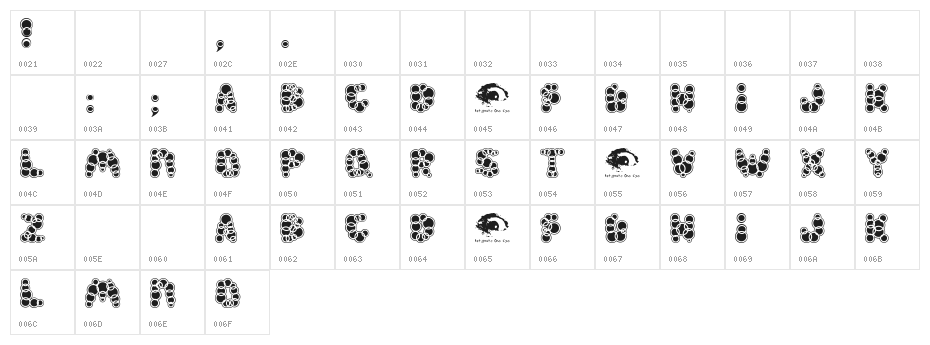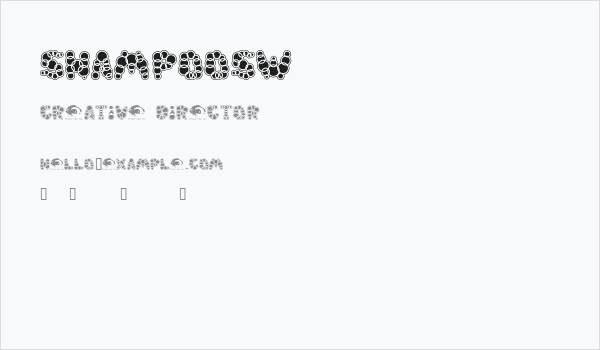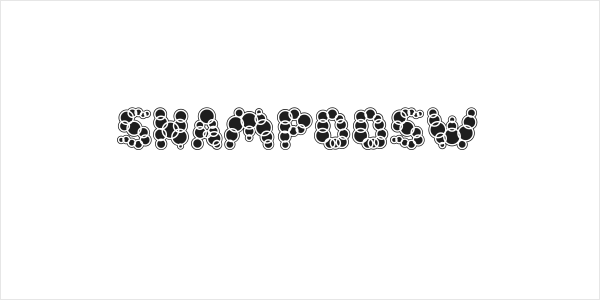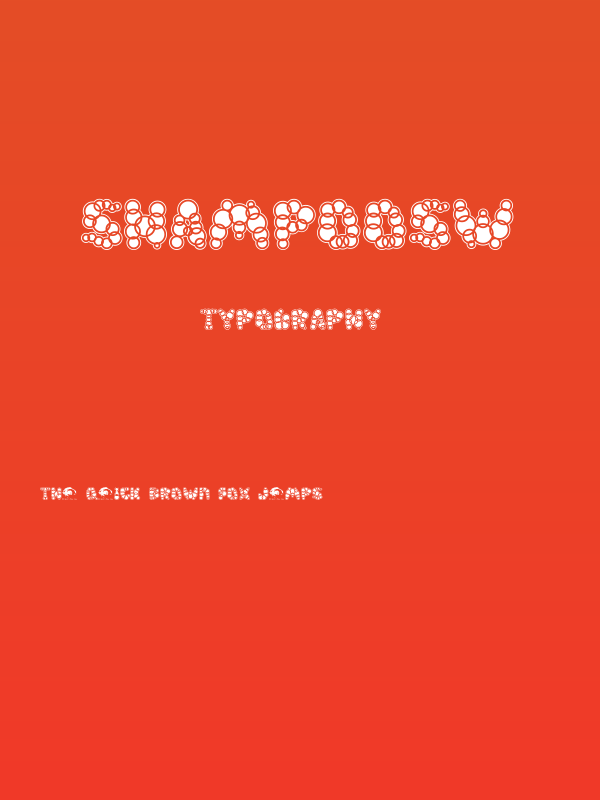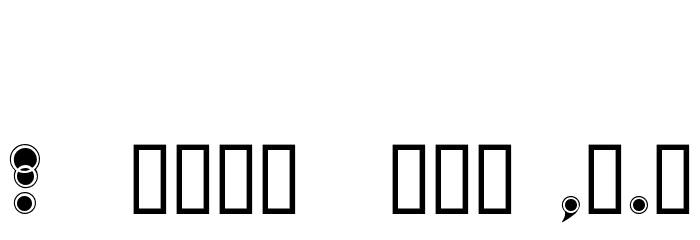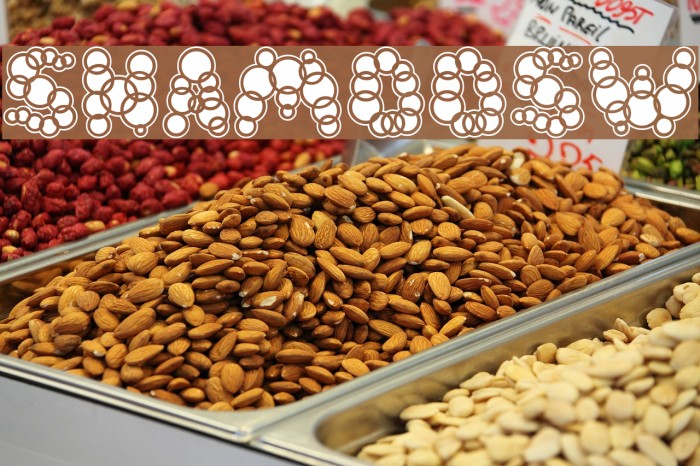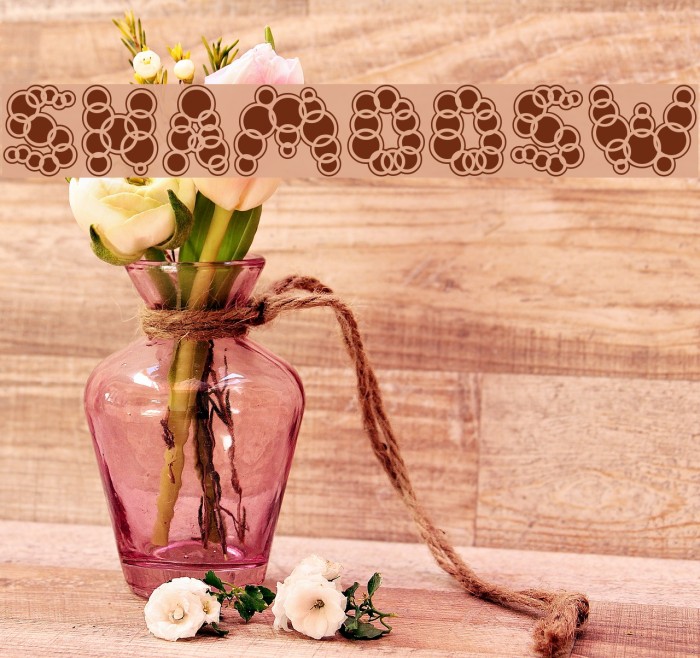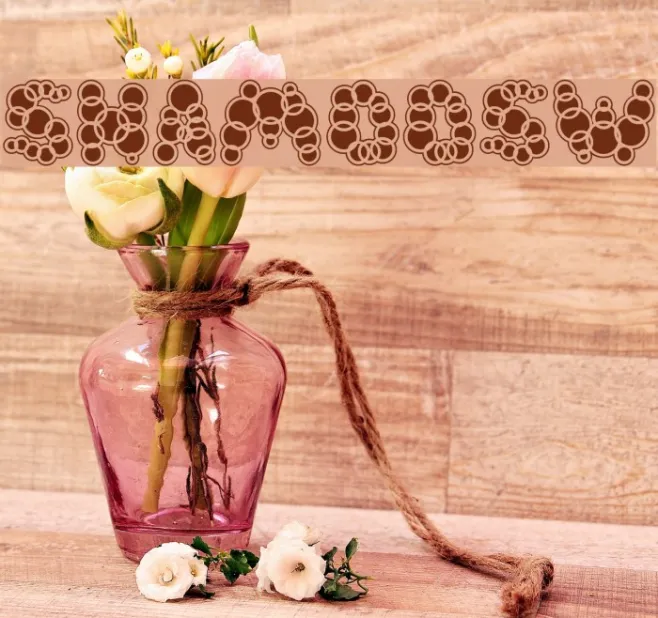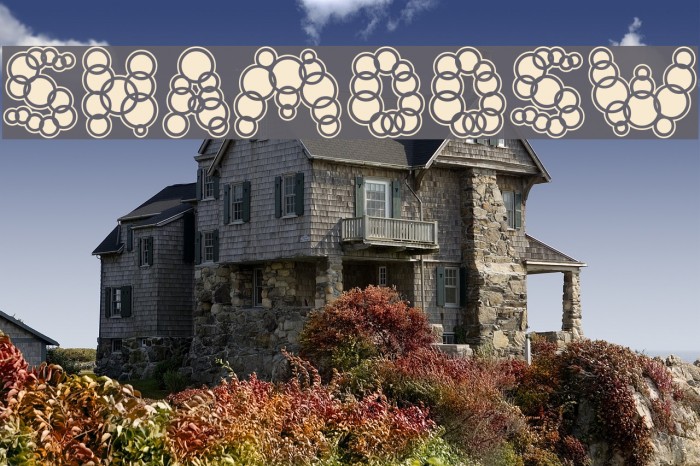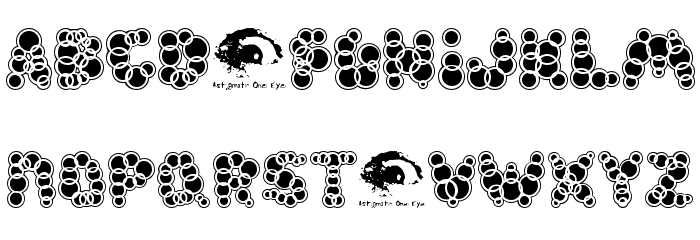
ShampooSW Font
ShampooSW Description
This font features a playful and whimsical design, characterized by its use of overlapping circular shapes to form each letter. The bold, bubbly appearance gives it a unique and eye-catching style, perfect for creative and informal applications. The letters are composed of multiple circles, creating a sense of movement and fun. This design is consistent across both uppercase and lowercase letters, as well as numbers and special characters. The font's distinct style makes it stand out, making it ideal for projects that require a touch of creativity and flair.